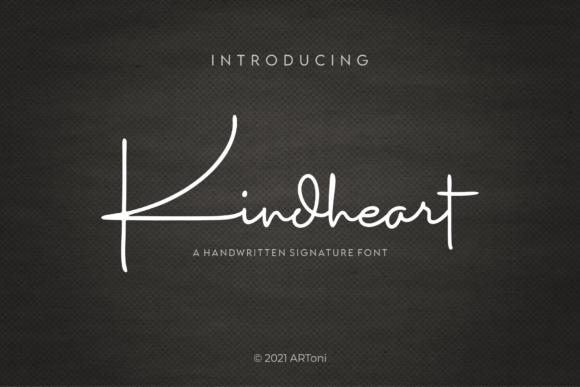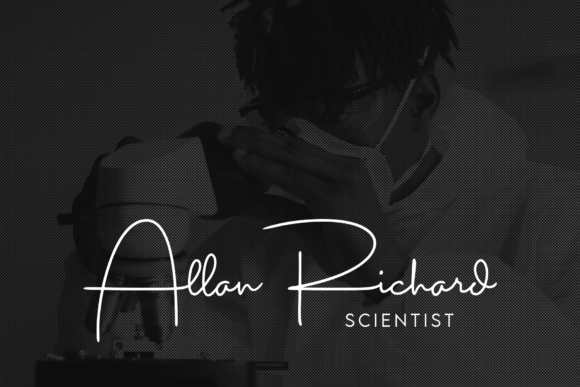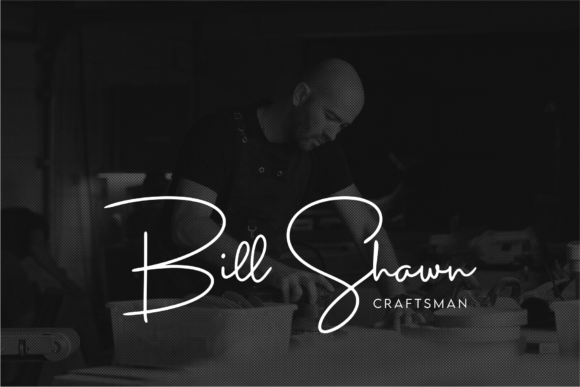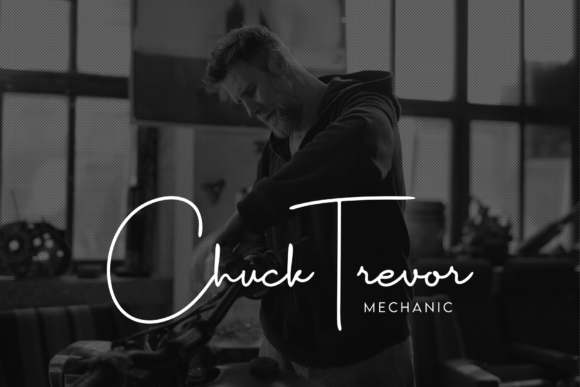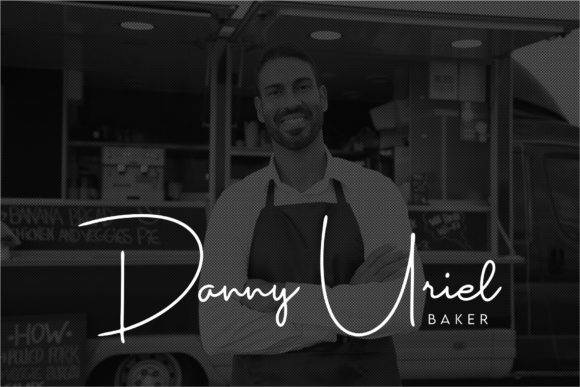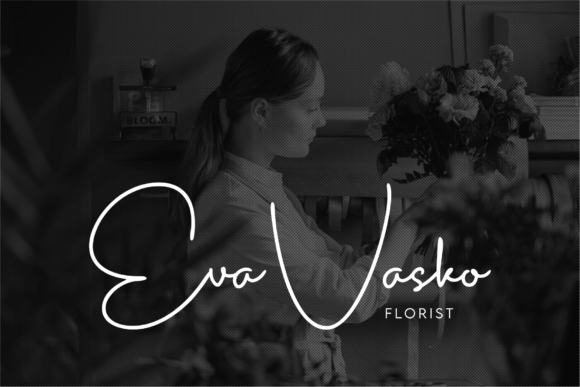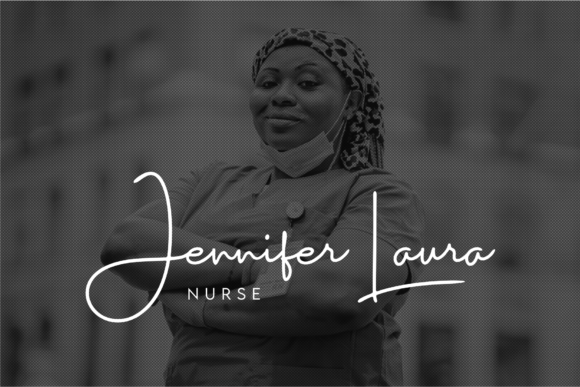
Adding a Touch of Luxury to Your Designs
Have you ever been working on a design project, pouring your heart and soul into it, and then suddenly, the perfect font comes along and takes it to the next level? That’s exactly what happened to me when I discovered the Kindheart Font. Its delicate and flowing calligraphy style is like a breath of fresh air for any design project.
The Kindheart Font is a beautiful addition to any design arsenal, adding a touch of luxury and sophistication to even the simplest of designs. Its unique characters that dance along the baseline will make your designs stand out from the crowd. Whether you’re creating a wedding invitation, a luxury brand logo, or a high-end product brochure, this font is sure to impress.
Kindheart Font Key Features
- Unique Characteristics: Kindheart Font features a unique blend of modern and vintage elements, with a focus on readability and aesthetic appeal. It includes a wide range of glyphs, including swashes and ligatures, to provide users with a high level of customization.
Kindheart Font Review
First off, I want to say that the Kindheart Font is quite ✨ charming. The soft, rounded edges and gentle curves give it a friendly, approachable feel that’s perfect for designs where you want to convey warmth and kindness. The font is also ✨ highly legible, making it great for body text or headings where readability is key.
One of the things I like about the Kindheart Font is its ✨ versatility. It works well in both digital and print designs, and can be used in a variety of contexts, from children’s books to social media graphics.
- ⚠️ Limited character set: The Kindheart Font only comes in a few weights, which can make it difficult to create complex typography.
- ⚠️ Not suitable for bold or dramatic designs: The font’s soft, rounded edges can make it look a bit too playful or juvenile for more serious designs.
- ⚠️ May not work well in small sizes: The Kindheart Font can be a bit difficult to read in small sizes, which can make it tricky to use in situations where space is limited.
Overall, I think the Kindheart Font is a great choice for designers who want to create warm, approachable designs. However, it may not be the best fit for more complex or dramatic typography projects.
Getting the Most Out of Kindheart Font
For a more dramatic effect, pair Kindheart Font with bold or italic styles.
To create a cohesive design, use Kindheart Font consistently throughout your project.
Kindheart Font is ideal for creative projects, such as:
- Brand identity and logo design
- Photography captions and quotes
- Handmade and artisanal product labels
Alternatives to Kindheart Font for Designers
Great Vibes is a beautiful, elegant script font that is perfect for adding a touch of sophistication to your designs. It features connected letters and a flowing feel that makes it ideal for use in titles, headings, and other display typography.
Compared to Kindheart Font, Great Vibes has a more refined and polished look, making it suitable for high-end designs and luxury brands.
Alex Brush is a elegant script font that is reminiscent of handwritten letters. It features a flowing, connected feel and a range of ligatures that make it perfect for use in titles, headings, and other display typography.
Compared to Kindheart Font, Alex Brush has a more organic and natural feel, making it suitable for use in designs that require a more personal touch.
What is the recommended font size for optimal readability with the Kindheart Font?
The recommended font size for optimal readability with the Kindheart Font is between 12-14 points for body text and 18-24 points for headings. This font size range provides a clear and legible reading experience, while also maintaining the font’s elegant and sophisticated feel.